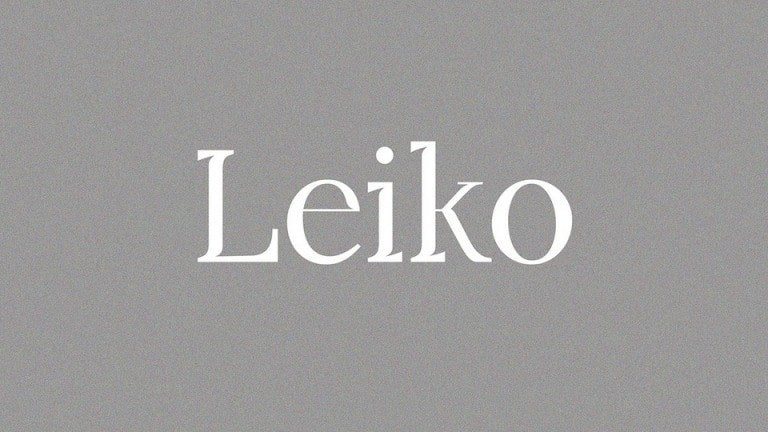
Leiko Serif Font
Leiko Serif Font is the new elegant serif font that will bring in your projects a touch of luxury and style. This typeface is a serif font from the designer Aniko Veres. It is a versatile serif typeface with moderate contrast, soft curves and sharp serifs.
It’s perfect match for logotypes, branding, wedding monograms and invitations, blog headlines and much more. Leiko is well-suited to classy branding and editorial designs. This font is free for personal and commercial use.